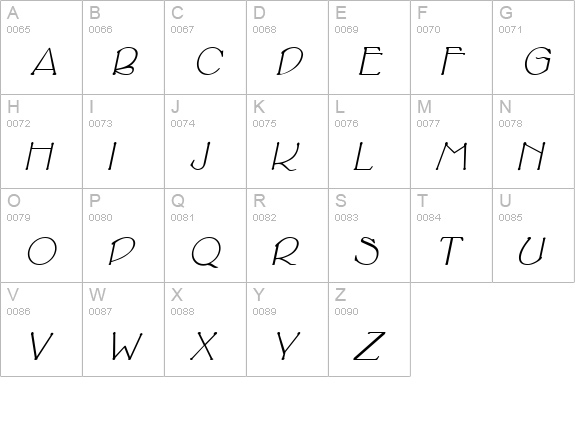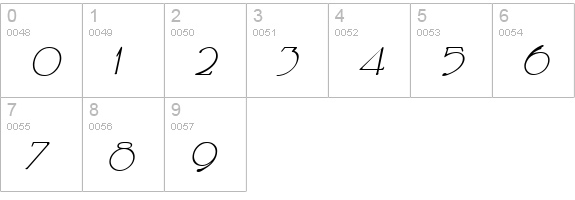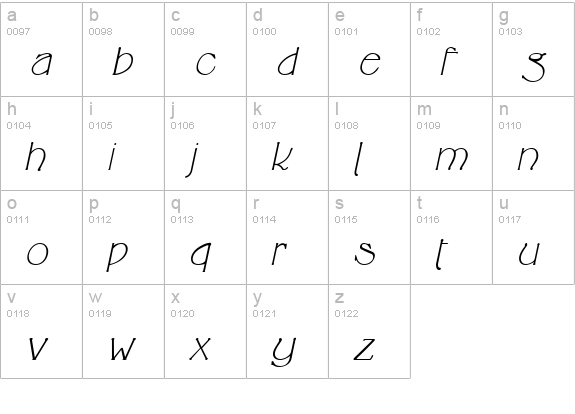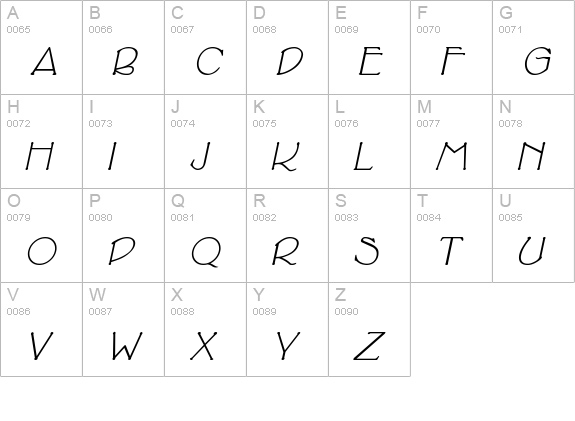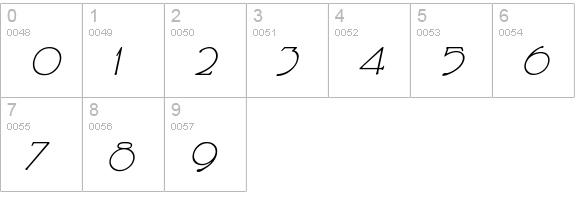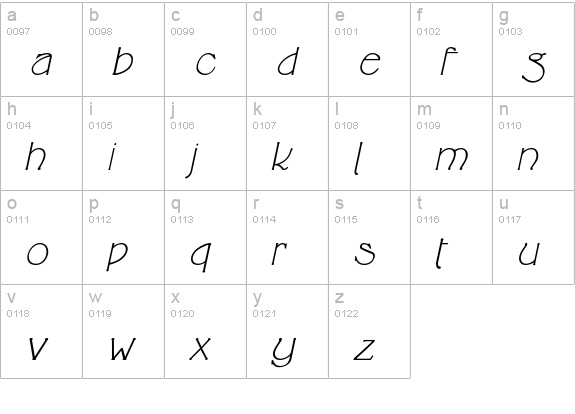
Cricket Italic is a distinctive, italic variant in the Cricket typeface family \xE2\x80\x94 well suited to design and typography projects.
Cricket Italic font is a sleek and modern typeface that exudes elegance and sophistication. Its slanted design adds a touch of flair to any project, making it perfect for use in headlines, logos, and other creative designs. With its clean lines and stylish curves, Cricket Italic font is sure to make a statement and capture the attention of your audience. The best part? Cricket Italic font is completely free to download at FontsMarket.com. This means you can easily access this stunning font and incorporate it into your designs without any cost. Whether you're working on a personal project or a professional endeavor, Cricket Italic font is a versatile and eye-catching choice that will elevate your work to the next level. Download it today and let your creativity shine with this beautiful and free font.